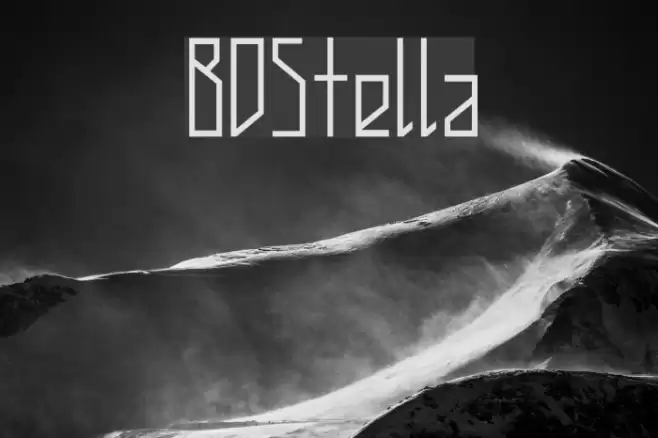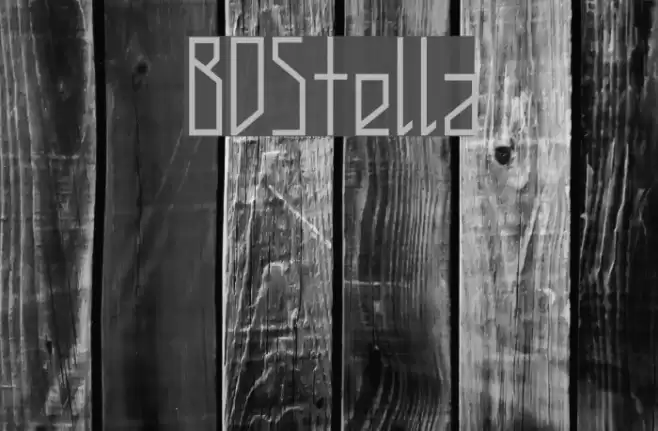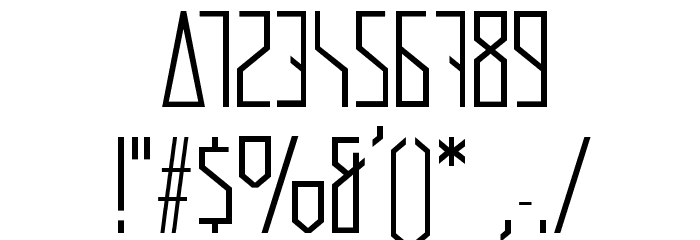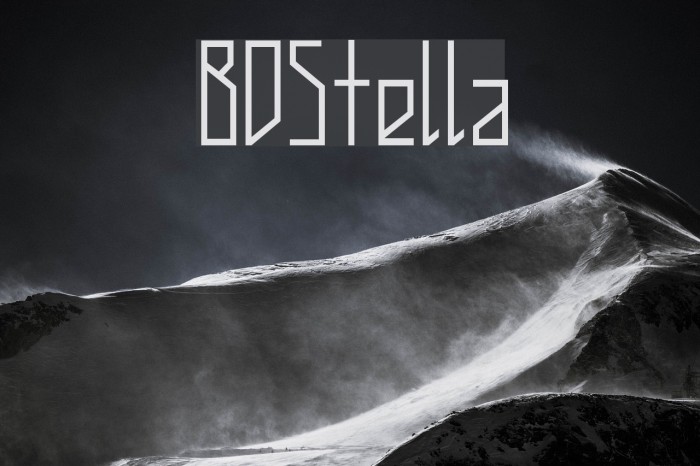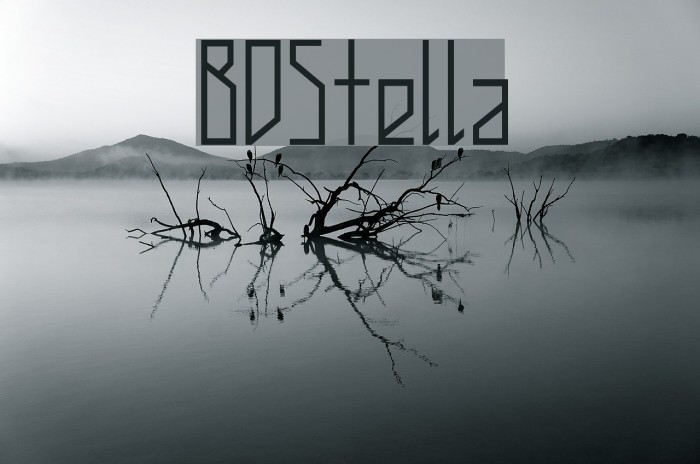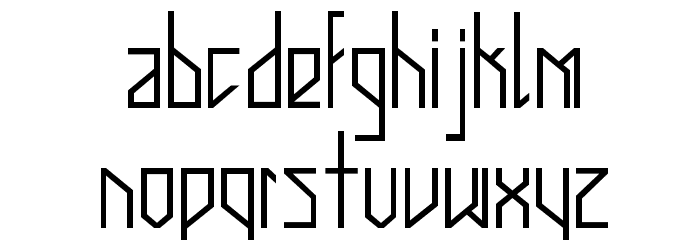
BDStella Font
BDStella Description
This font features a geometric and angular design, characterized by its sharp edges and clean lines. The uppercase and lowercase letters maintain a consistent height, creating a uniform appearance. The numerals and special characters follow the same angular style, ensuring a cohesive look across all characters. The font's unique structure gives it a futuristic and modern feel, making it stand out in any design. Its distinct style is both eye-catching and versatile, suitable for various creative applications.
A geometric and angular font with a modern, futuristic style from Uncategorized fonts.